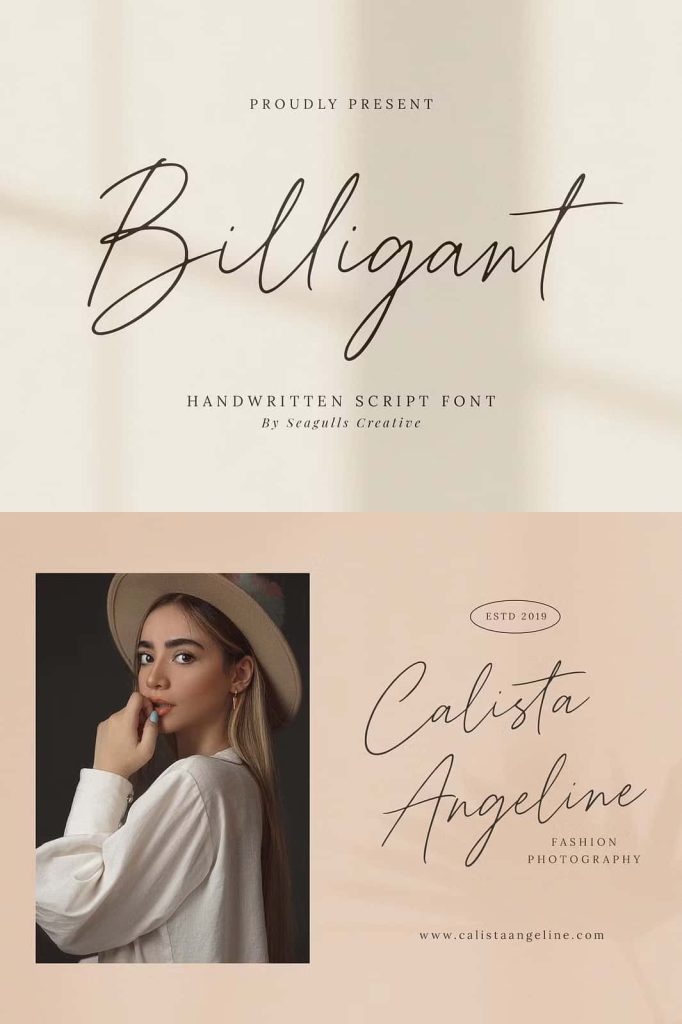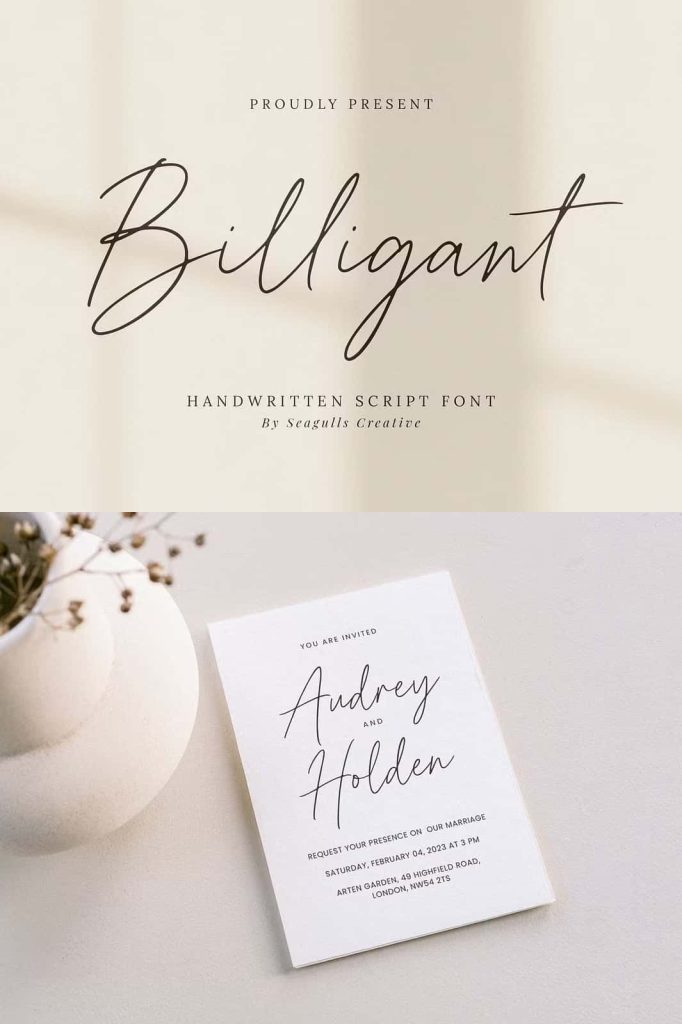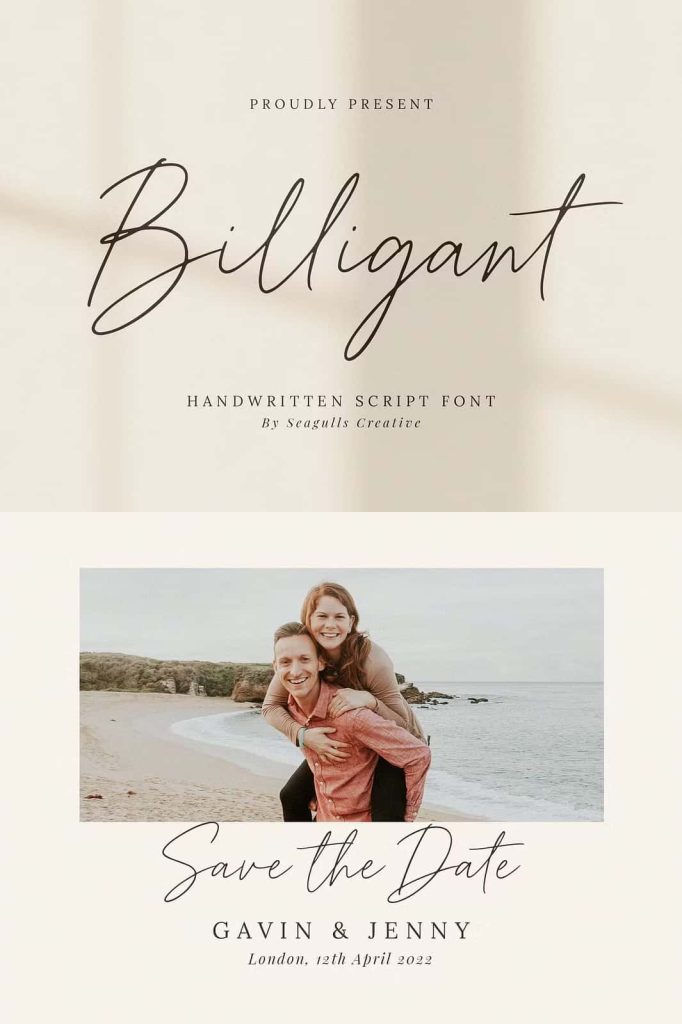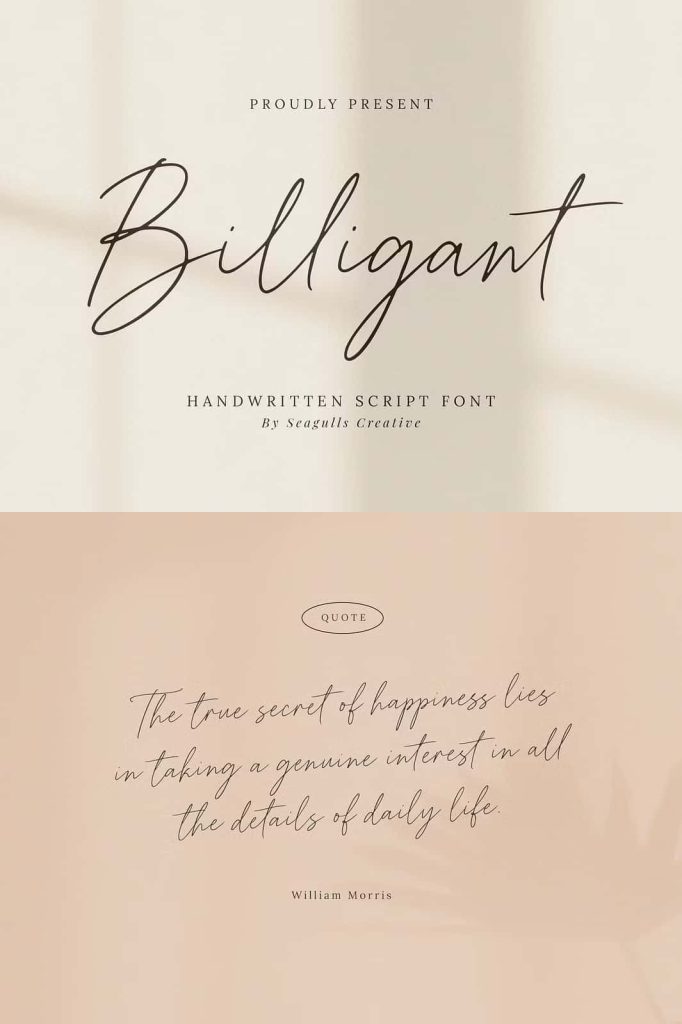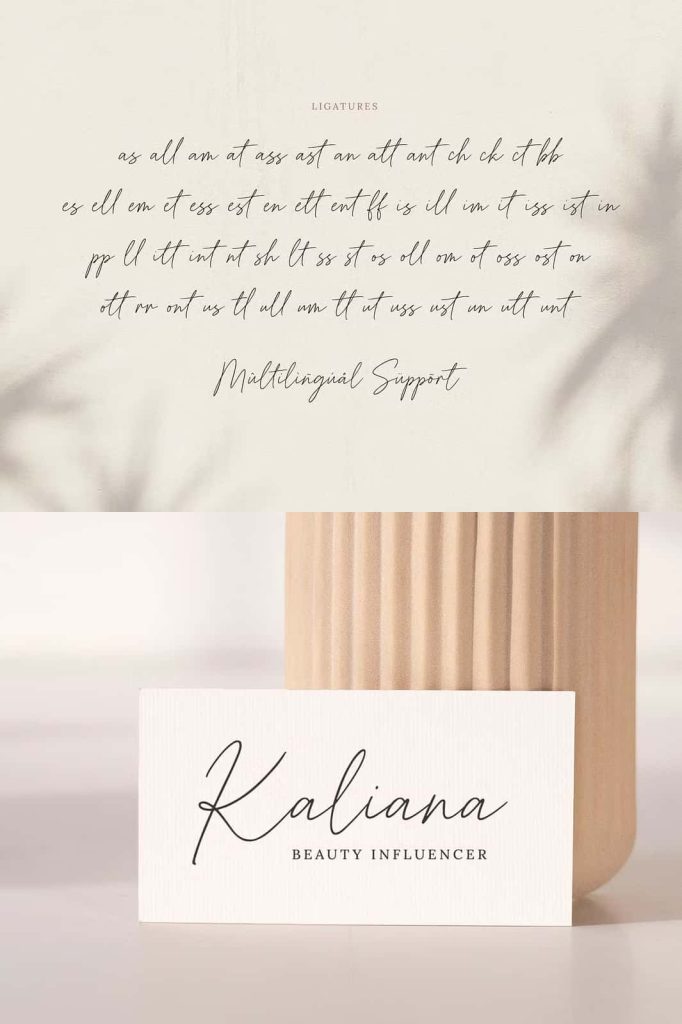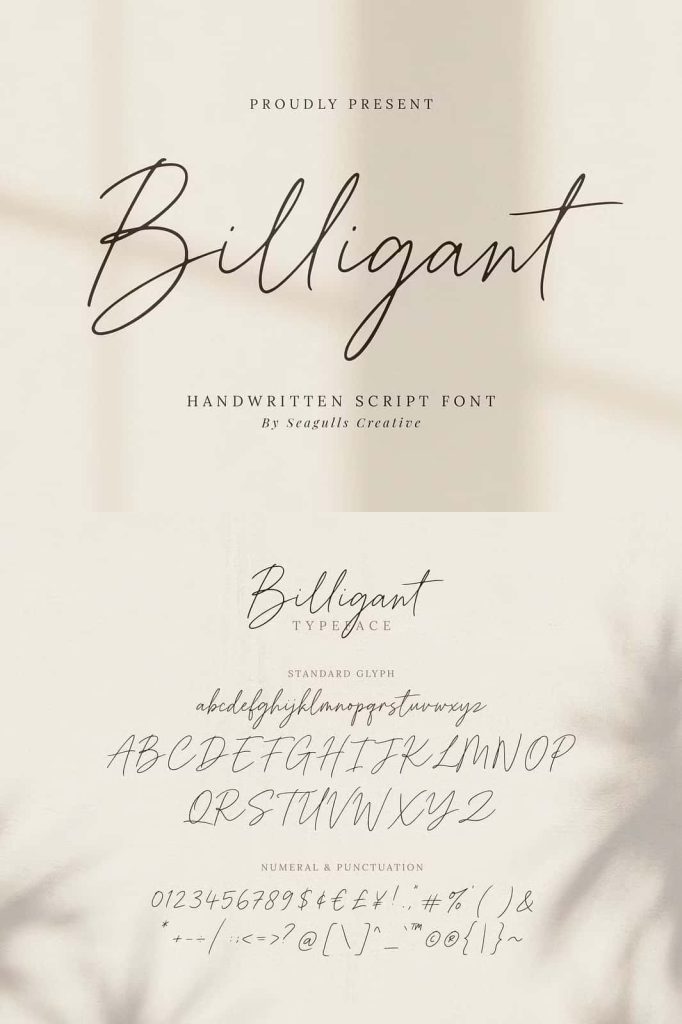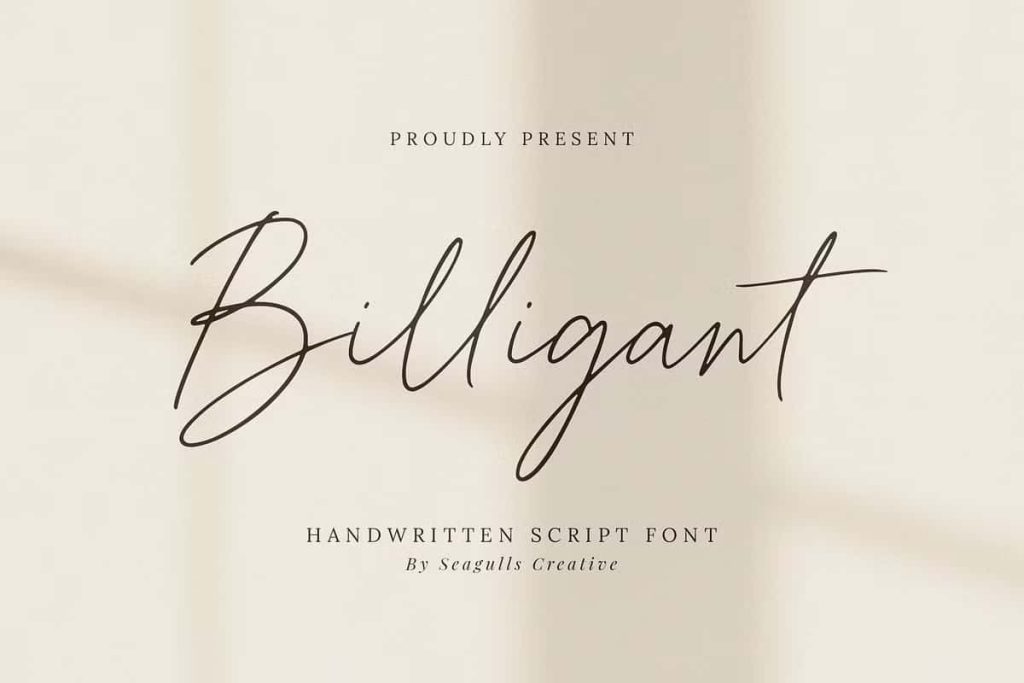
Billigant Handwritten Script Font
Billigant Script Font: Elegant, Romantic, and Perfect for Creative Design
Billigant is a refined and romantic script font designed to elevate your creative projects with elegance and charm. Its graceful strokes and flowing letterforms create a sophisticated visual experience that instantly enhances any design. Whether you are working on branding, wedding materials, or social media content, Billigant gives your typography a polished and expressive look.
This font combines beauty and versatility, making it suitable for a wide range of applications. It delivers a soft and inviting aesthetic that resonates with audiences who appreciate detail and style. By using Billigant, you can transform simple text into a visually compelling element that captures attention and communicates emotion.
Elegant Script Design with a Romantic Feel
Billigant features smooth curves and natural connections between letters, creating a seamless and fluid writing style. Each character is carefully designed to maintain balance and harmony, ensuring that your text looks refined and easy to read. This elegant structure allows the font to perform well in both decorative and functional roles.
The romantic tone of Billigant makes it ideal for projects that require a soft and sophisticated touch. Its delicate details add depth and beauty without overwhelming the overall composition. This balance ensures that your designs remain visually appealing and professional.
Versatile for Multiple Creative Applications
Billigant adapts effortlessly to various design contexts. Its flexible style allows you to use it across different mediums while maintaining a consistent and cohesive look. From print materials to digital platforms, this font delivers reliable and stylish results.
Its versatility makes it a valuable tool for designers who want to create diverse projects without switching between multiple typefaces. Billigant provides the elegance needed for formal designs while still offering enough personality for modern and creative work.
Key Features of Billigant
• Elegant and romantic script style
• Smooth and flowing letter connections
• Balanced design for readability and beauty
• Suitable for both print and digital use
Perfect for Wedding and Romantic Projects
Billigant excels in designs that celebrate love and special moments. Its graceful style makes it a natural choice for wedding invitations, stationery, and event materials. The font adds a sense of intimacy and elegance, helping you create memorable designs that feel personal and meaningful.
It also works beautifully in other romantic contexts, such as anniversary cards, greeting cards, and decorative typography. Its ability to convey emotion through design makes it a powerful tool for storytelling.
Best Use Cases for Billigant
• Wedding invitations and stationery
• Branding and logo design
• Photography branding and portfolios
• Social media posts and content
• Product packaging and labels
• Advertising and promotional materials
Create Sophisticated Branding with Style
Billigant helps you build a brand identity that feels elegant and trustworthy. Its refined appearance communicates quality and attention to detail, making it ideal for businesses in industries such as fashion, beauty, and lifestyle.
By incorporating this font into your branding, you can create logos and visual elements that stand out with grace. Its distinctive style ensures that your brand remains memorable and visually appealing.
Enhance Invitations and Stationery Design
Billigant transforms invitations and stationery into works of art. Its flowing script adds a handcrafted feel that enhances the overall design. Whether you create wedding invitations or event cards, this font helps you achieve a cohesive and elegant look.
The font’s readability ensures that your message remains clear while maintaining a decorative style. This makes it suitable for both headlines and supporting text within your designs.
Pairing Billigant with Other Fonts
To create a balanced composition, pair Billigant with clean and simple fonts. Sans serif typefaces work well as companions because they provide contrast and improve readability. This combination allows Billigant to remain the focal point while supporting text stays structured.
Use Billigant for headlines, names, or key phrases, and combine it with a minimal font for body text. This approach ensures your design remains both elegant and functional.
Improve Your Creative Workflow
Billigant simplifies the process of creating elegant typography. Its natural flow reduces the need for additional decoration, allowing you to achieve a polished result quickly. This efficiency helps you focus on layout, composition, and overall design quality.
The font encourages experimentation with spacing, alignment, and hierarchy. You can explore different design approaches to discover new creative possibilities. Its versatility makes it a reliable choice for designers at any skill level.
• Highly versatile for various projects
• Enhances branding with a premium look
• Perfect for wedding and event materials
• Easy to pair with other typefaces
Conclusion
Billigant is more than just a script font; it is a creative tool that brings elegance and emotion into your designs. Its flowing curves, refined details, and versatile application make it an excellent choice for designers who want to create sophisticated and memorable visuals. By incorporating Billigant into your projects, you can produce typography that feels graceful, stylish, and truly captivating.